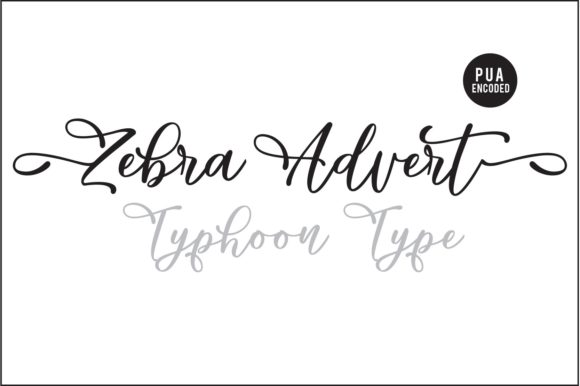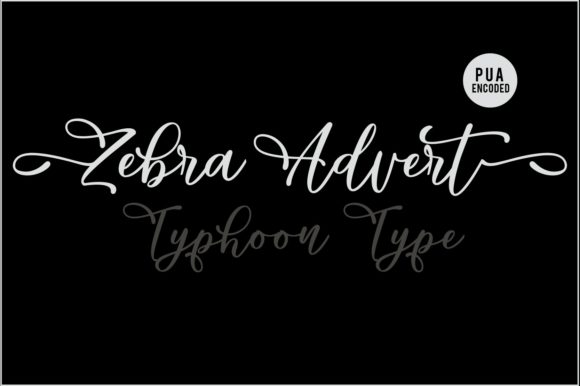
Zebra Advert Font
About Zebra Advert Font
Zebra Advert is a stunning handwritten font with amazing swashes. This one-of-a-kind typeface will guarantee to turn any design project into a stunner!